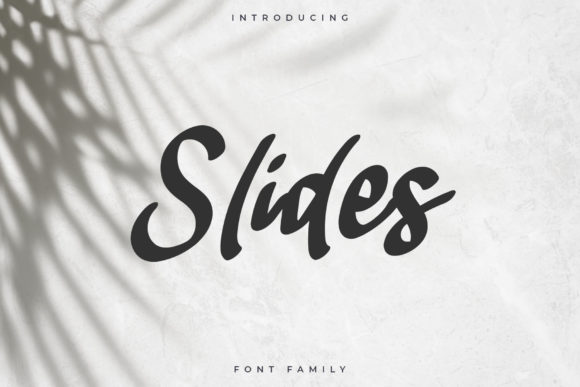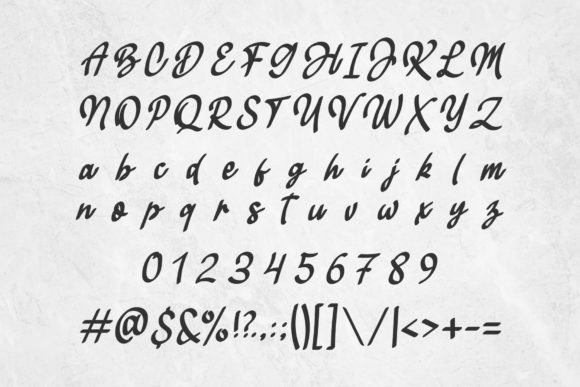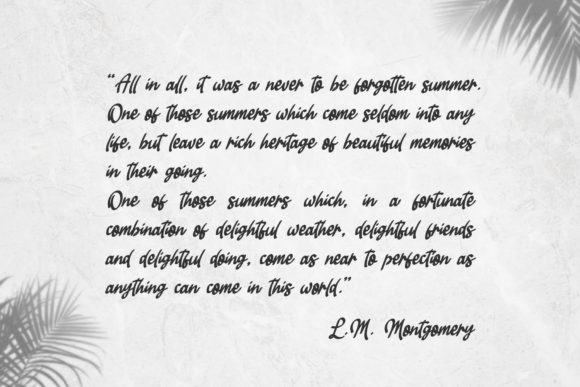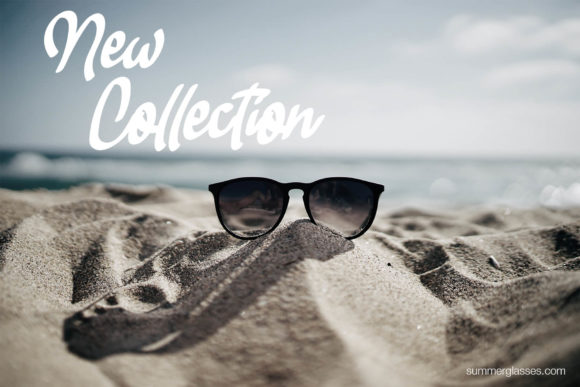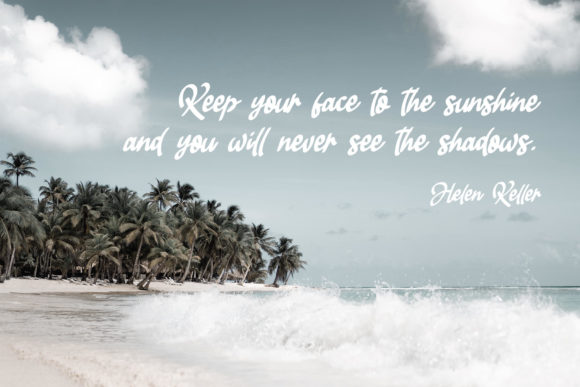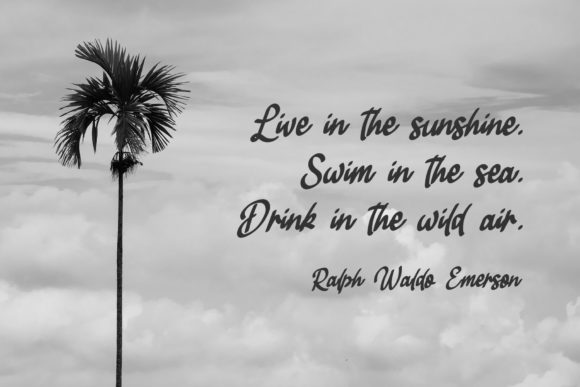
Slides Font
About Slides Font
Slides is a modern script font that works great for logos, branding, quotes, social media, and even lettered wrapping paper! It looks beautiful when used for handwritten quotes and logos, and can even be used to make fun products like mugs or t-shirts.